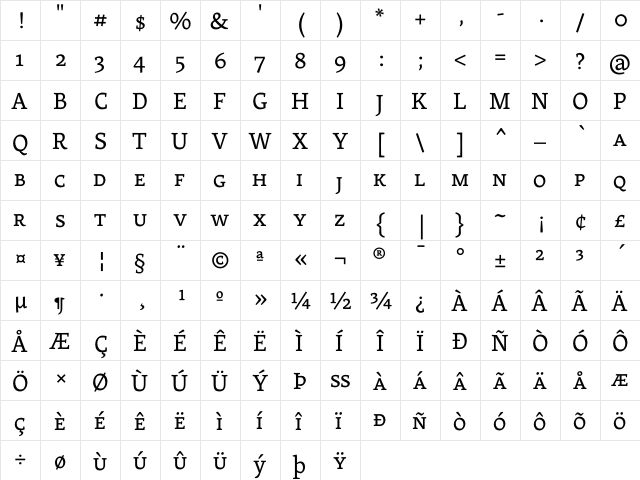
Skolar OT Bold
| Foundry | by David Brezina |
Design Context for Skolar OT Typeface
Skolar OT is a composed and adaptable typeface that performs quietly and consistently across a wide range of design contexts. The heavy weight commands attention and anchors typographic hierarchies.